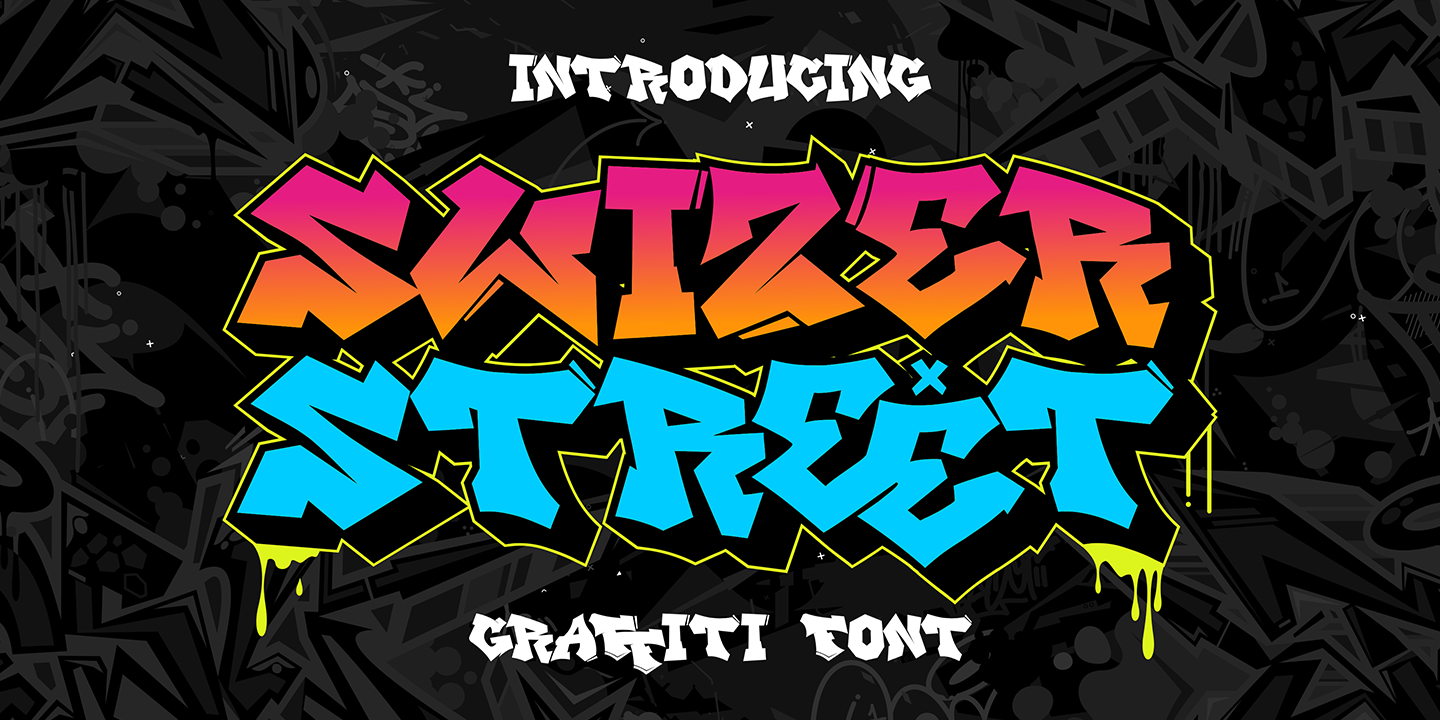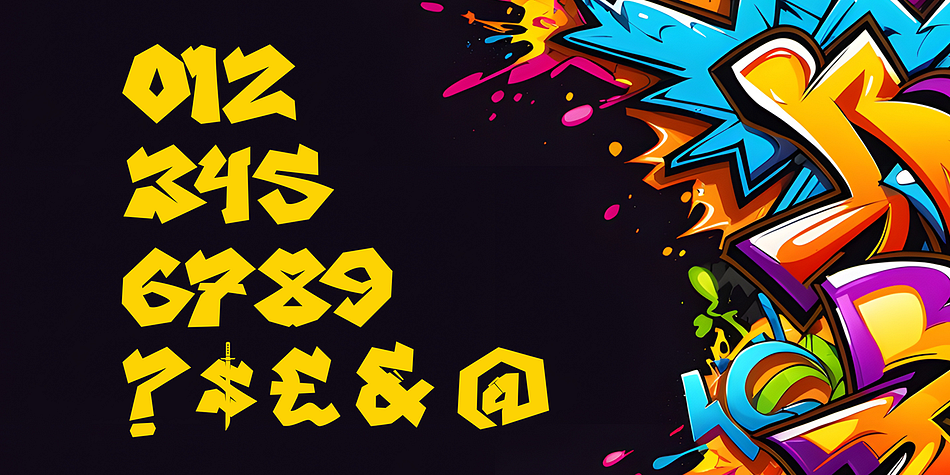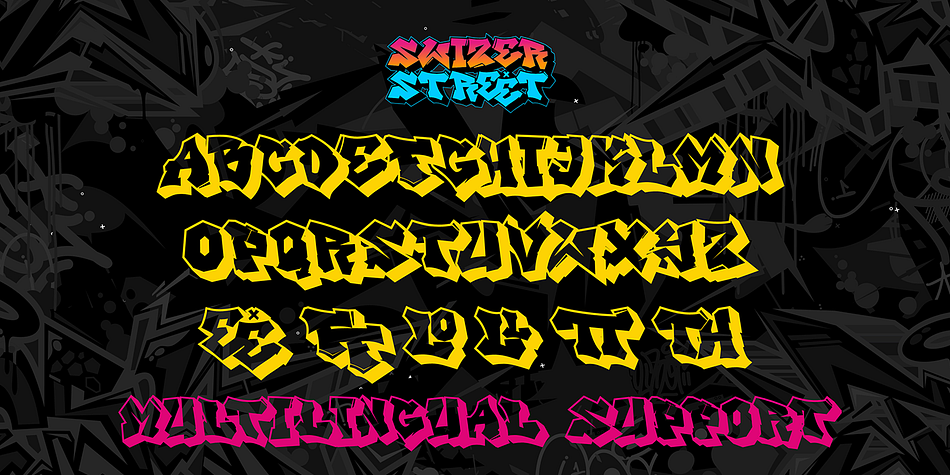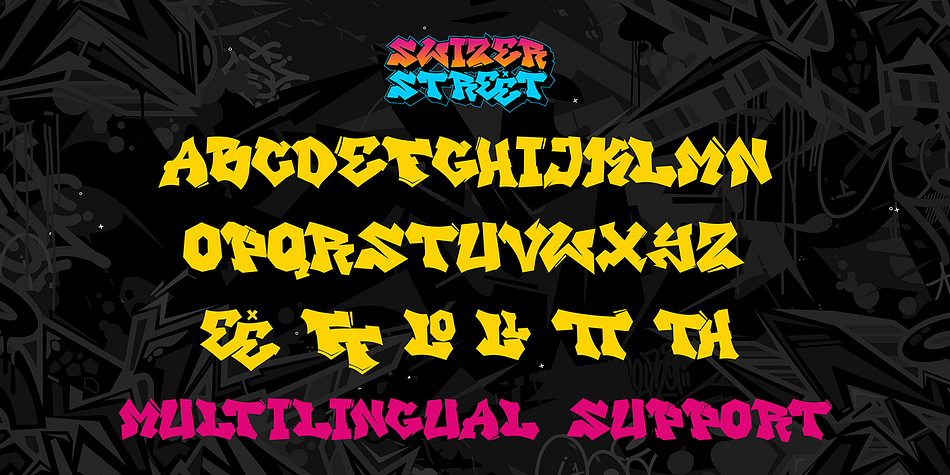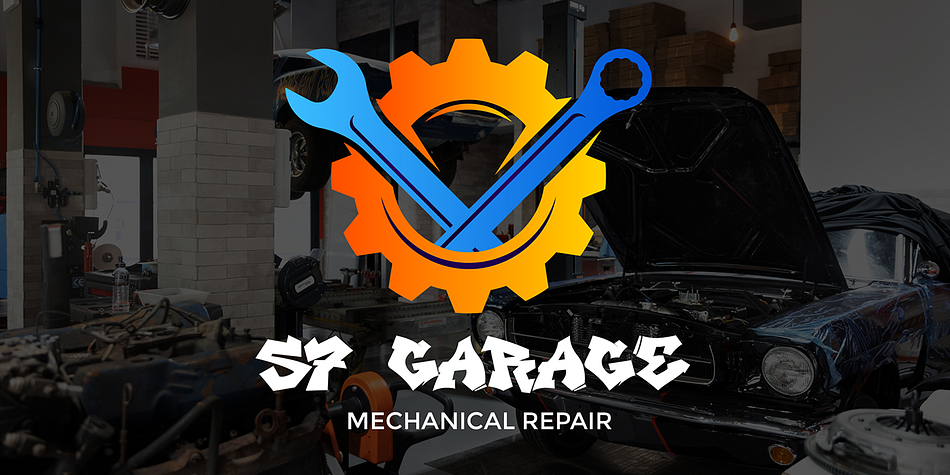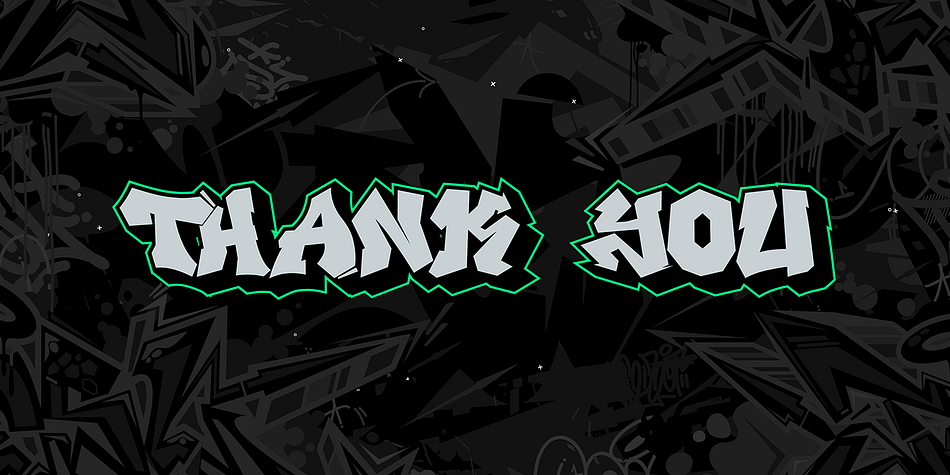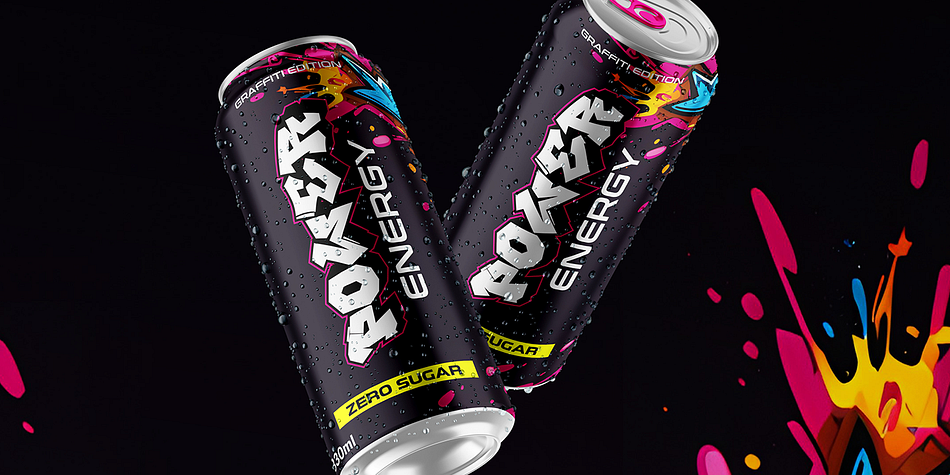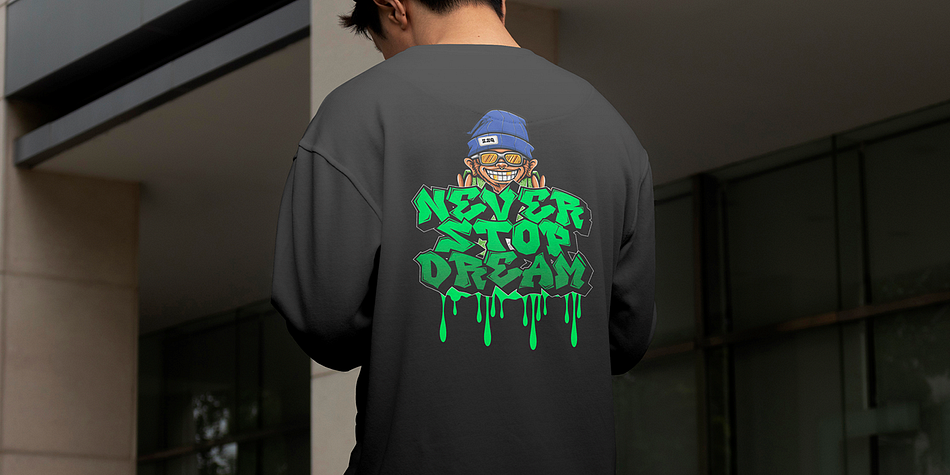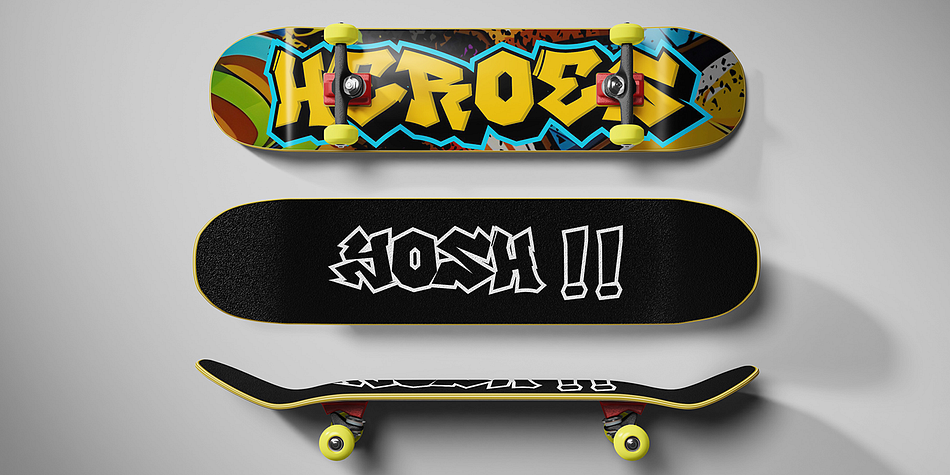
Swizer Street
Swizer Street is a display font family. This typeface has two styles and was published by Cikareotype Studio.
“Swizer Street” is an awesome graffiti font that features both regular and shadow characters. This versatile font brings a bold and dynamic look to your designs, making it perfect for urban-themed projects, street art, posters, and more. The combination of regular and shadow characters adds depth and dimension, giving your text a striking, standout appearance. Whether you’re aiming for a gritty street vibe or a modern urban aesthetic, “Swizer Street” enhances your creative projects with its unique and impactful style.